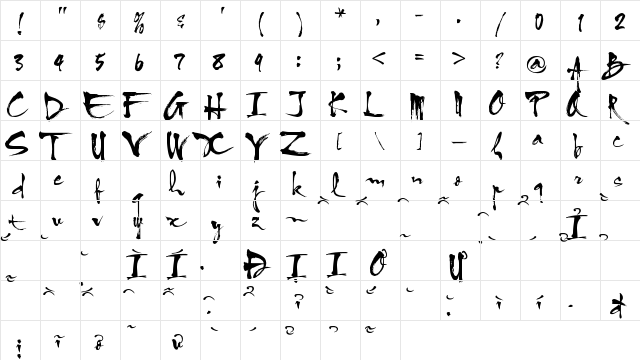
VNIHLThuphap Regular Free Font
VNIHLThuphap Regular
Complete VNIHLThuphap Regular glyph index. Displaying only characters natively supported by VNIHLThuphap Regular font.
Design Context for VNIHLThuphap
VNIHLThuphap is a composed and adaptable typeface that performs quietly and consistently across a wide range of design contexts.